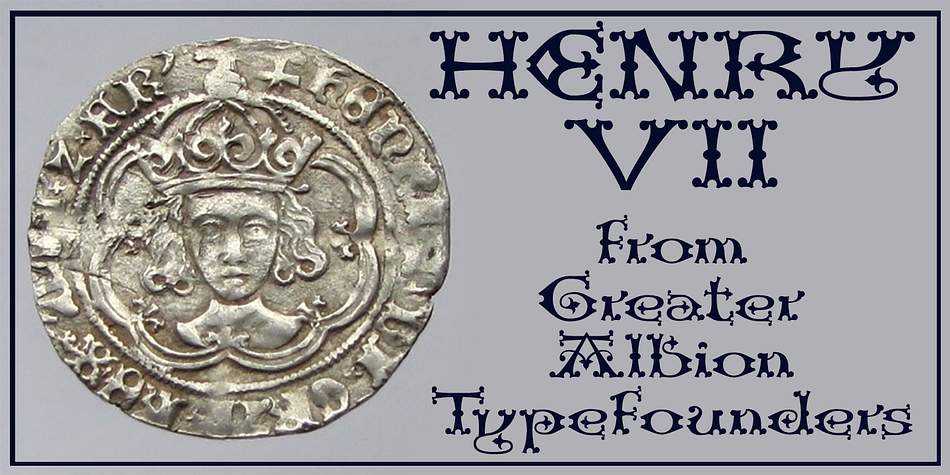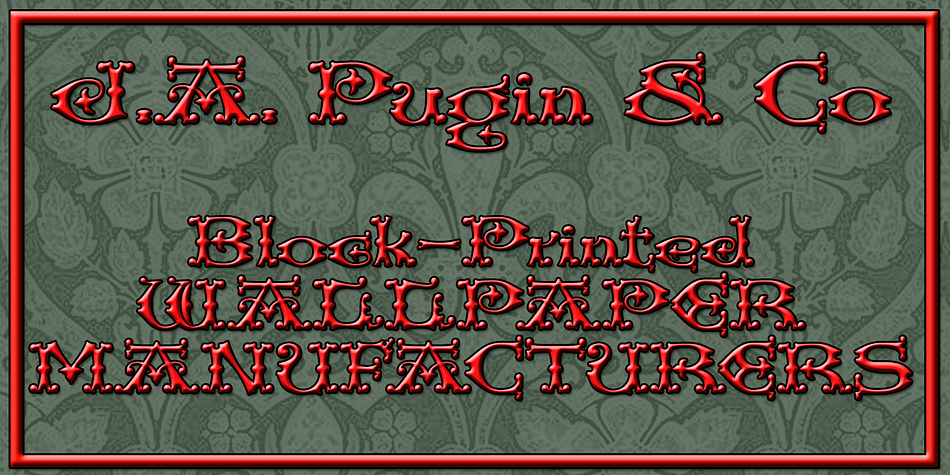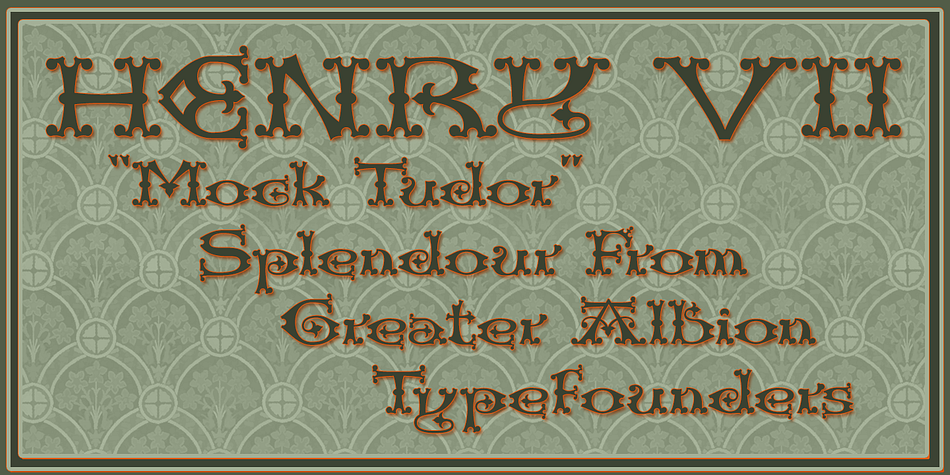
Henry VII is a blackletter font published by Greater Albion Typefounders.
Henry VII draws it’s inspiration from an inscription in Westminster Abbey dedicated to the memory of His Late Majesty of the same appellation. However, it is also in large part in the best tradition of 19th and 20th century Tudor revival. The inscription consisted wholly and completely of Capital Letter forms and we have ‘imagined’ all the rest in similar style, so Henry VII is very much a Mock Tudor work. Never the less, we feel it is great fun and ideal for lending an aire of ‘Olde England’ to any piece of design. Best used with ‘Greensleeves’ playing ever so softly in the background!
| Foundry | Greater Albion Typefounders |
| Style | Blackletter |